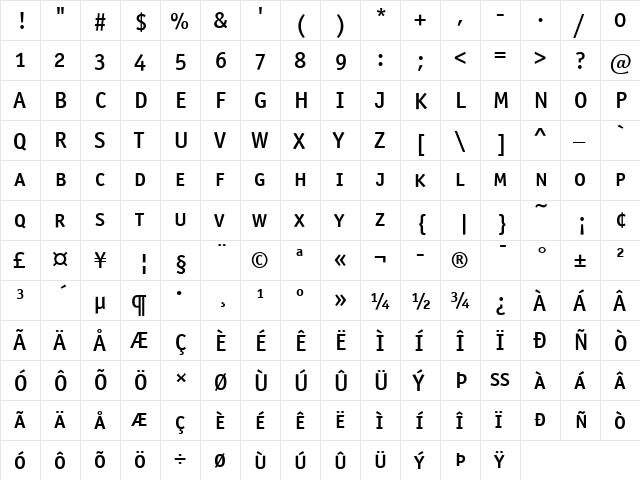
OfficinaSanITC Medium Font Preview
OfficinaSanITC Medium
OfficinaSanITC Medium Font Details
| Foundry | \(c\) International Typeface Corporation and by Erik Spiekermann, Ole Schaefer |
Design Context for OfficinaSanITC Typeface
OfficinaSanITC takes a measured approach to typography — its balanced proportions and neutral character make it a reliable workhorse for both digital and print work.